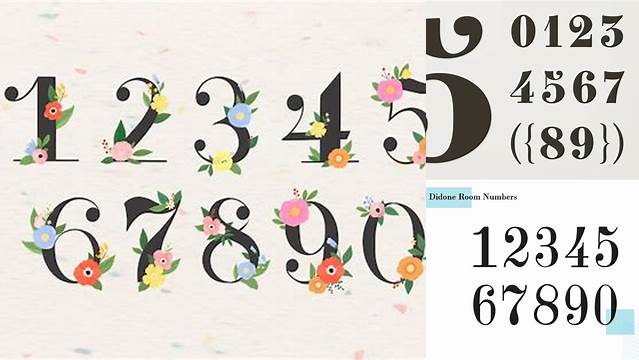
Pretty Number Fonts: Generate Unique Designs
Hey guys! Ever needed a way to make your numbers stand out? Whether you're designing invitations, creating graphics, or just want to add a little flair to your digital documents, using pretty number fonts can make all the difference. In this article, we’ll dive deep into the world of number fonts, exploring different styles, tools, and tips to help you generate unique and eye-catching designs. So, buckle up and let's get started!
Understanding Number Fonts
Before we jump into generating fonts, let’s understand what number fonts are all about. Number fonts aren't just about the numerical characters; they’re about the entire aesthetic and how those numbers integrate into your design. From elegant serifs to bold sans-serifs, the right font can convey a specific mood and enhance your message. We will explore the different types, uses, and how to choose the perfect one for your project. Let's get started with the basics and then move on to generating some awesome number fonts!
Different Styles of Number Fonts
Let's kick things off by exploring the wide world of number font styles. There are tons of options out there, and understanding the differences will help you pick the perfect one for your project. Whether you're going for something classic, modern, playful, or professional, there's a number font style that fits the bill. Think about the message you want to convey – is it a formal invitation, a fun birthday card, or a sleek business report? The style of your font can set the tone for your entire design.
Serif Number Fonts
Serif fonts are your go-to for a classic and formal look. They have these little strokes, called serifs, at the ends of the letters and numbers. This gives them a traditional feel, making them ideal for elegant designs and professional documents. Think of fonts like Times New Roman or Garamond – they're the stalwarts of the serif world. When you use a serif number font, you're adding a touch of sophistication and readability, especially in print. These fonts are great for things like certificates, formal invitations, and any project where you want to exude a sense of timelessness and authority. The presence of serifs helps guide the eye, making the numbers easy to read even at smaller sizes. So, if you're aiming for a classic and polished aesthetic, serif number fonts are definitely the way to go.
Sans-Serif Number Fonts
If you're after something modern and clean, sans-serif fonts are your best bet. These fonts don't have the little serifs at the ends, giving them a minimalist and contemporary vibe. Think of fonts like Arial or Helvetica – they're super popular for their simplicity and legibility. Sans-serif number fonts work great in digital designs, websites, and anything that needs a fresh, uncluttered look. They're also fantastic for headlines and titles because they stand out without being overly ornate. The clean lines of sans-serif fonts make them perfect for conveying a sense of efficiency and modernity. Whether you're designing a website, creating a presentation, or working on a branding project, sans-serif number fonts can give your work that sleek, up-to-date feel you're looking for.
Script Number Fonts
For a touch of elegance and personality, script number fonts are the way to go. These fonts mimic handwriting, adding a personal and stylish flair to your designs. They can range from formal and flowing to casual and playful, making them super versatile for different projects. Imagine using a script number font for wedding invitations or special event announcements – they instantly add a touch of sophistication. However, keep in mind that script fonts can sometimes be harder to read, especially at smaller sizes, so it’s best to use them sparingly and in larger formats. When used correctly, script number fonts can make your designs feel more unique and handcrafted. Whether you're working on a greeting card, a logo, or any project that needs a personal touch, script number fonts can bring that extra bit of charm and elegance.
Display Number Fonts
Display number fonts are where things get really fun and creative. These fonts are designed to grab attention and make a statement, often featuring unique shapes, bold strokes, and eye-catching details. They're perfect for headlines, posters, and any project where you want your numbers to really stand out. Think of fonts with quirky shapes, vintage styles, or even futuristic designs. Display fonts are all about personality and making an impact. They can add a touch of whimsy, a sense of nostalgia, or even a futuristic vibe to your work. However, because they're so distinctive, it’s best to use them sparingly and in larger sizes to ensure readability. When you want to make a bold statement and add a unique visual element to your design, display number fonts are the perfect choice. Whether you're working on a movie poster, a party invitation, or a website banner, these fonts can help you capture attention and create a memorable impression.
How to Choose the Right Number Font
Choosing the right number font can feel like a big decision, but it doesn't have to be overwhelming. Think about the overall tone and purpose of your project. Are you aiming for something formal and professional, or fun and playful? The font should complement your message and enhance the overall design. Consider the readability – will the numbers be easy to read at different sizes? And don't forget about consistency – try to stick to a limited number of fonts within a single project to maintain a cohesive look. By keeping these factors in mind, you can narrow down your options and select a number font that truly shines. Let's break down some specific tips to help you make the best choice.
Consider the Project’s Purpose
The first step in choosing the right number font is to really think about the purpose of your project. What are you trying to achieve? Is it a formal invitation that needs an elegant touch, or a casual flyer that calls for something fun and playful? The purpose will guide you towards the appropriate style of font. For instance, a legal document would benefit from a clear and professional font like Times New Roman, while a children's birthday invitation could shine with a whimsical display font. Understanding your project's goals helps you align the font with the overall message, ensuring that the numbers contribute to the desired effect. So, before diving into font options, take a moment to clarify the purpose – it's the key to making the right choice. By considering the project’s purpose first, you’ll be able to narrow down your options and focus on fonts that truly fit the occasion and the message you're trying to convey.
Readability Matters
Readability is crucial when choosing a number font. If your numbers aren't easy to read, your message can get lost, no matter how beautiful the font is. Think about where the numbers will be used – will they be displayed in large print, or will they need to be legible at a smaller size? Simple, clean fonts like Arial or Helvetica are often the best for readability, especially in body text or detailed layouts. Fancy script or display fonts might look amazing, but they can become difficult to decipher if they're too intricate or used at a small scale. Always prioritize clarity, ensuring that the numbers can be quickly and easily understood by your audience. Test the font in various sizes and contexts to see how it performs. By focusing on readability, you ensure that your message is effectively communicated, no matter the design. After all, the most stylish font is useless if no one can read it.
So there you have it, guys! A comprehensive guide to pretty number fonts and how to generate them. We've covered everything from understanding different font styles and choosing the right font for your project to exploring various tools and design tips. Remember, the key is to balance creativity with readability and consistency. By avoiding common mistakes and drawing inspiration from different styles, you can create number fonts that truly elevate your designs. Whether you're working on a website, an invitation, a poster, or a report, the right number font can make all the difference. So go ahead, experiment, and have fun creating your own pretty number fonts! Happy designing!